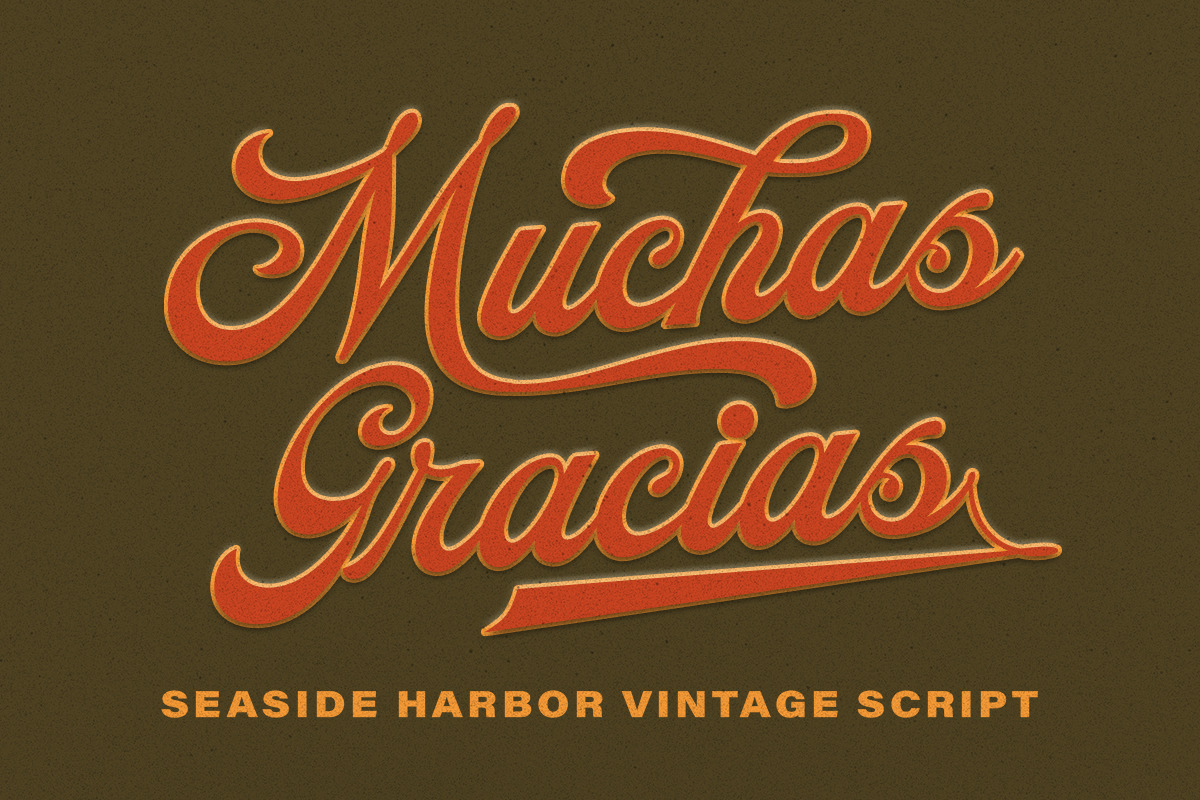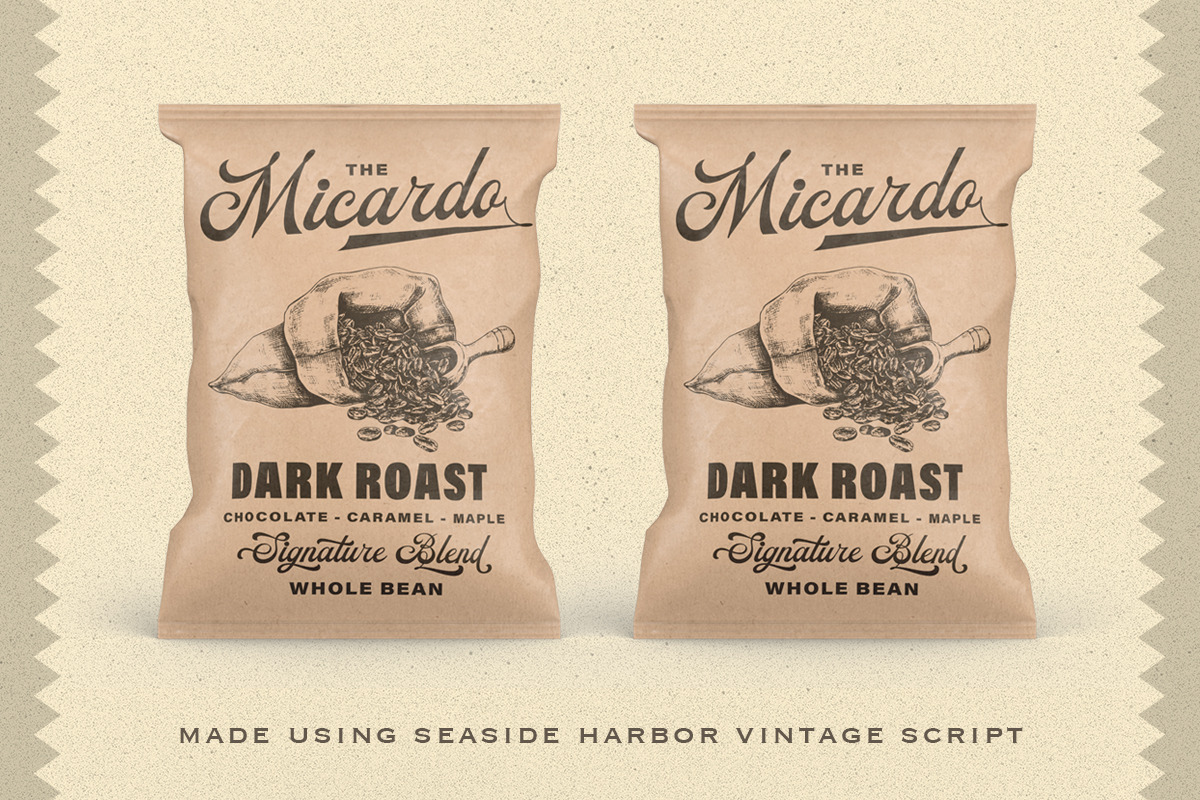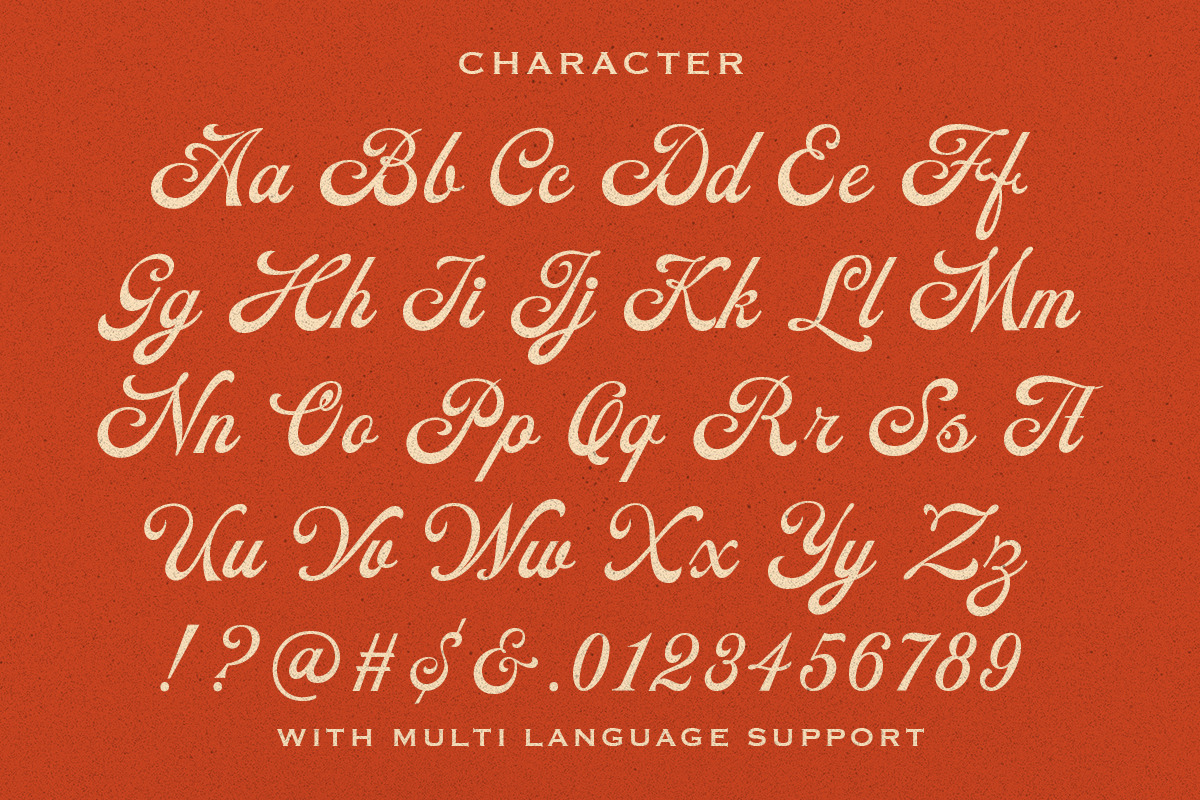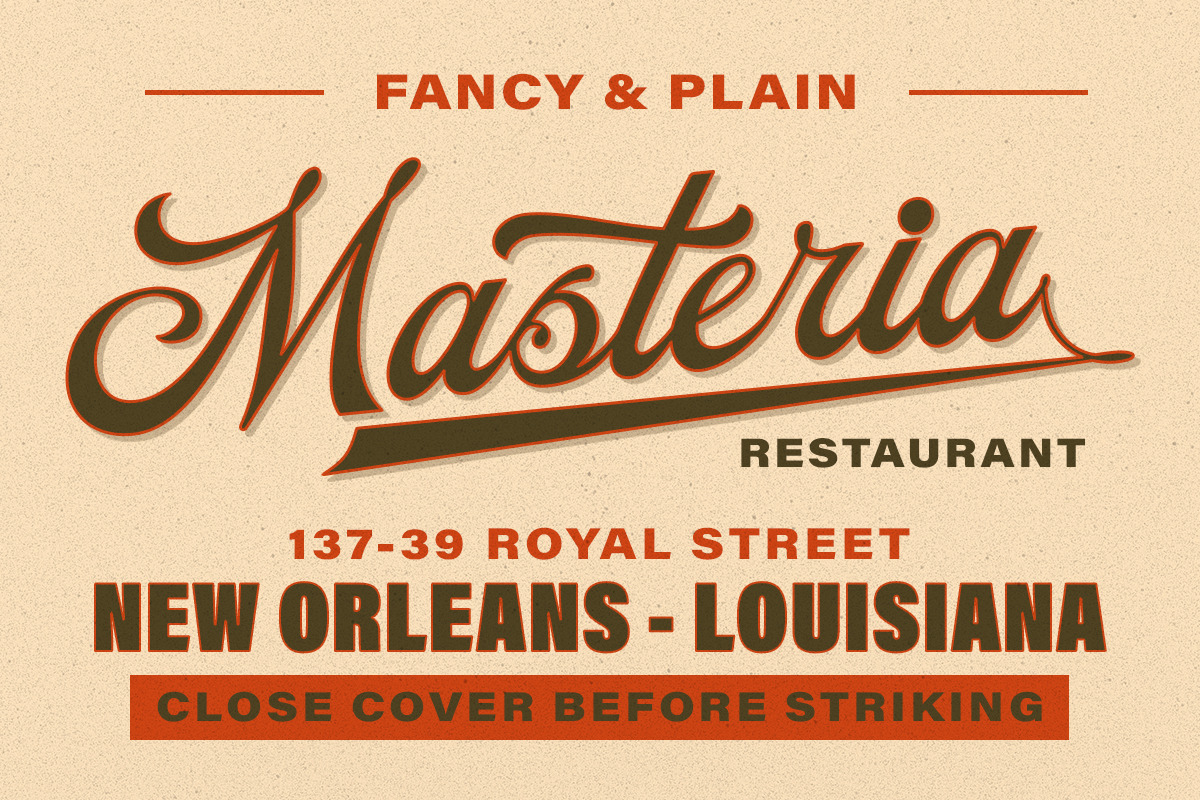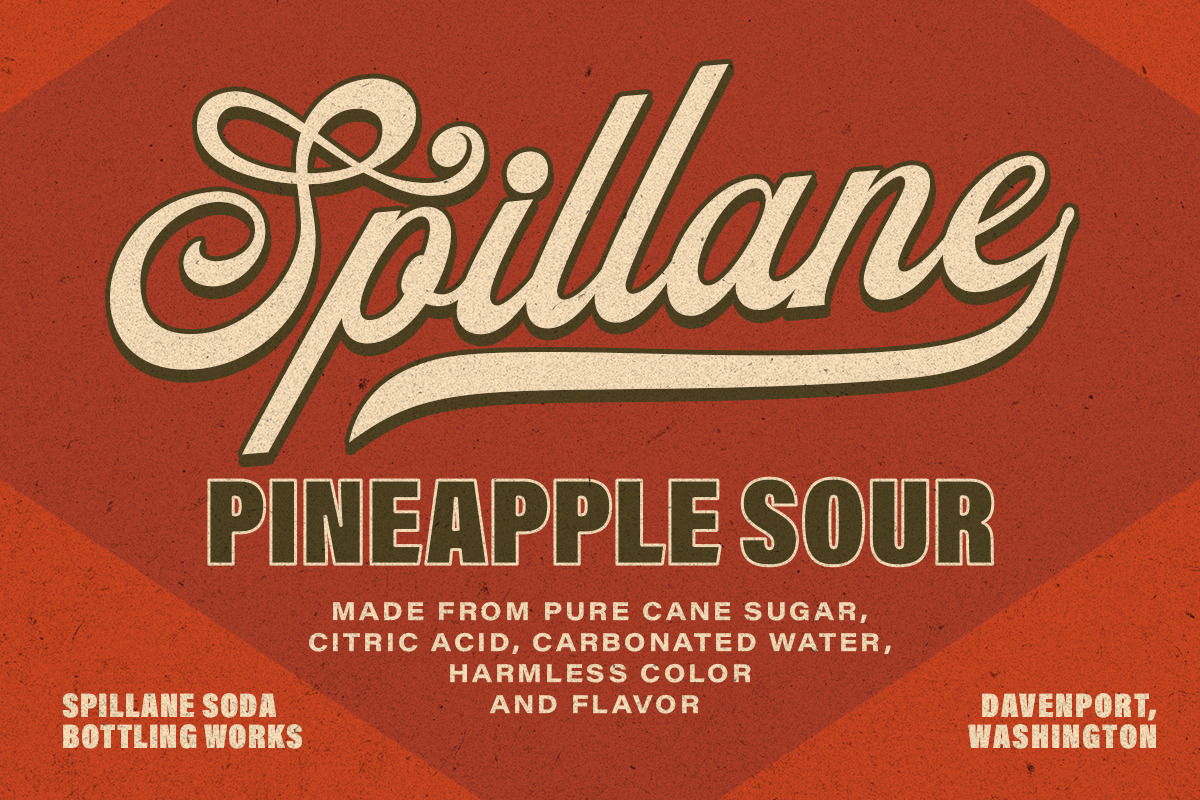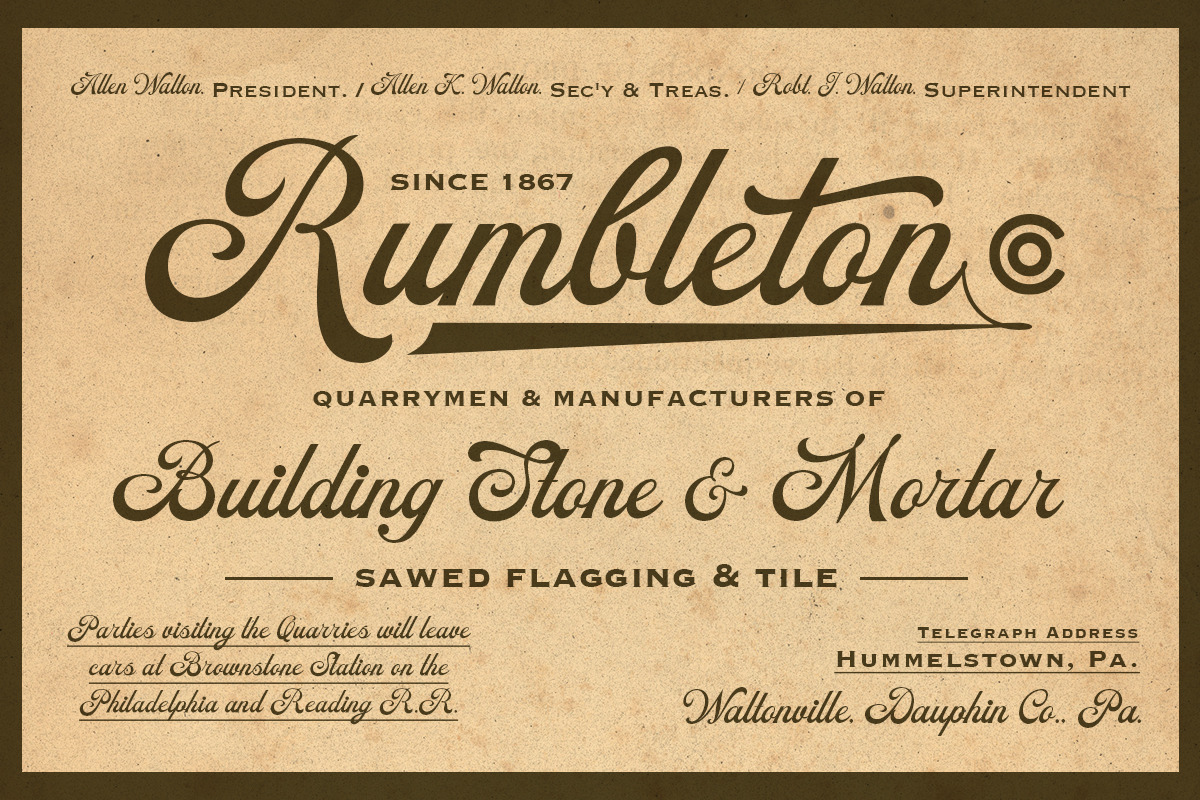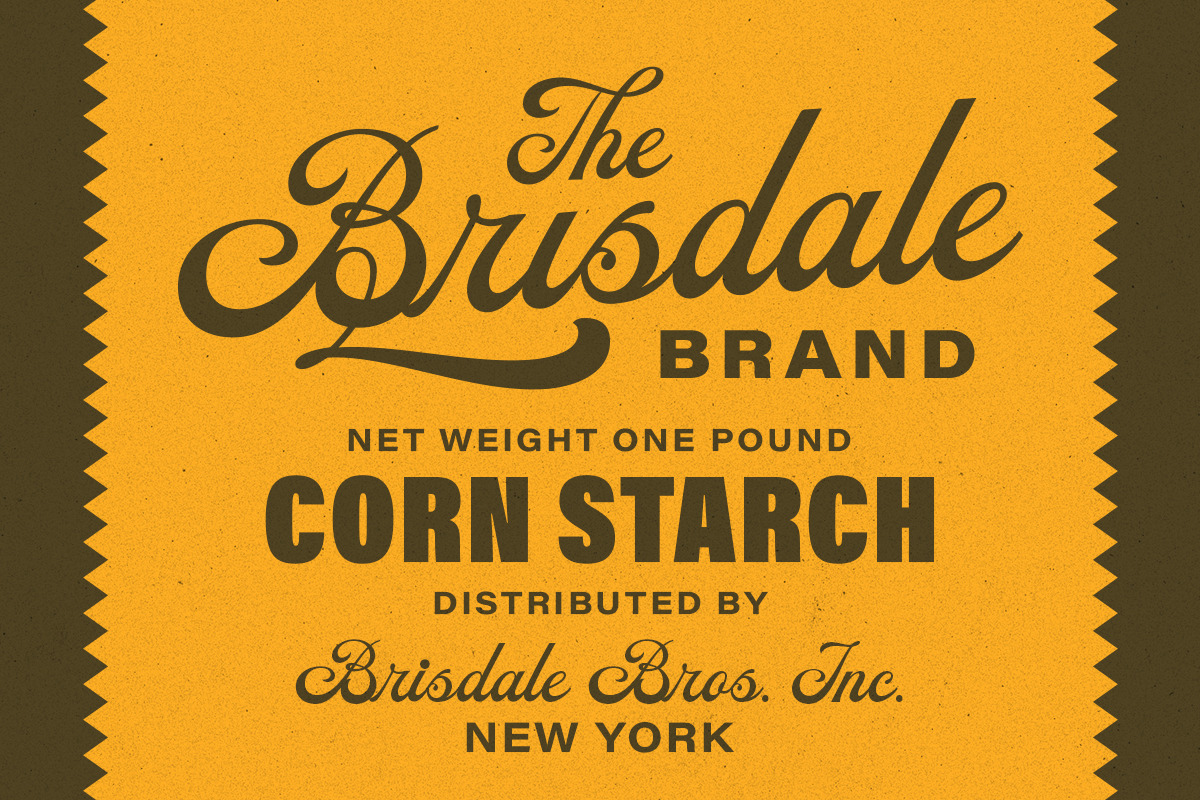
The Seaside Harbor - Vintage Script
Introducing, The Seaside Harbor, A Vintage Script. This typeface has nostalgic feel because of its style, so the font is really match for your project with retro / vintage theme. The swashes make this typeface unique even more so you can use it to create beautiful vintage lettering in a sec.